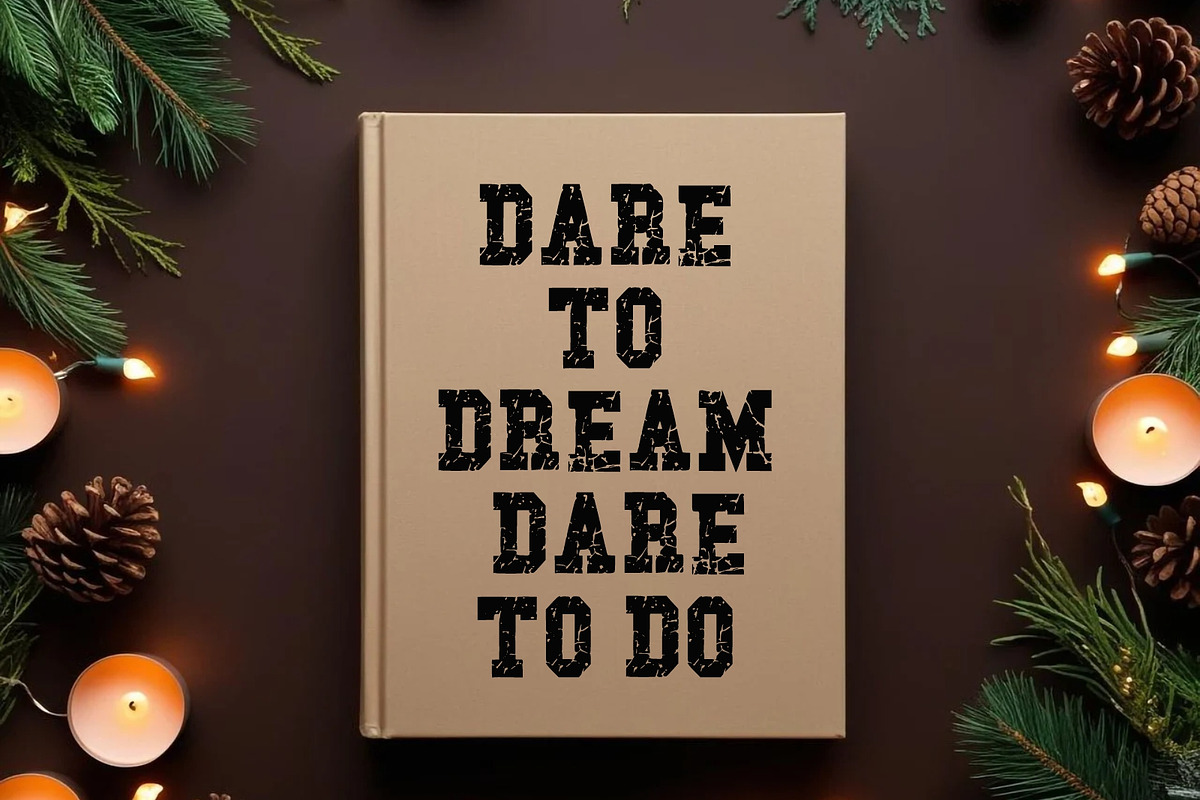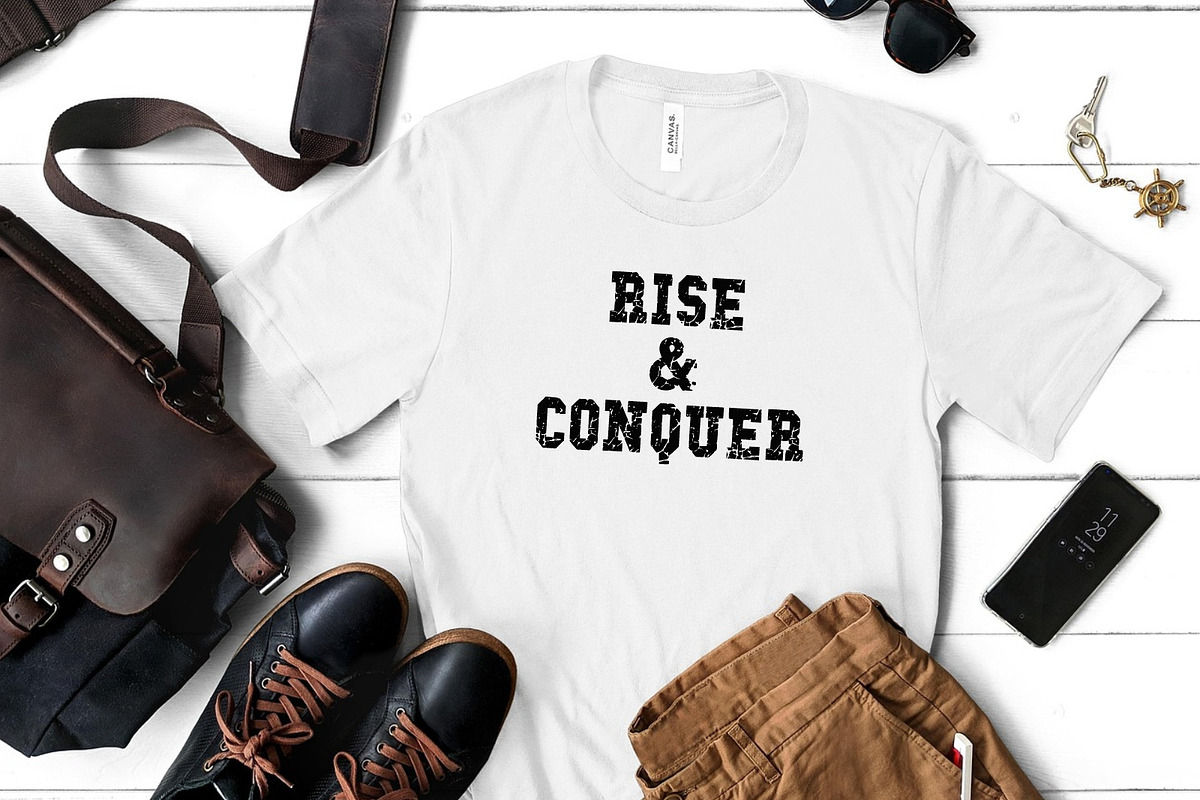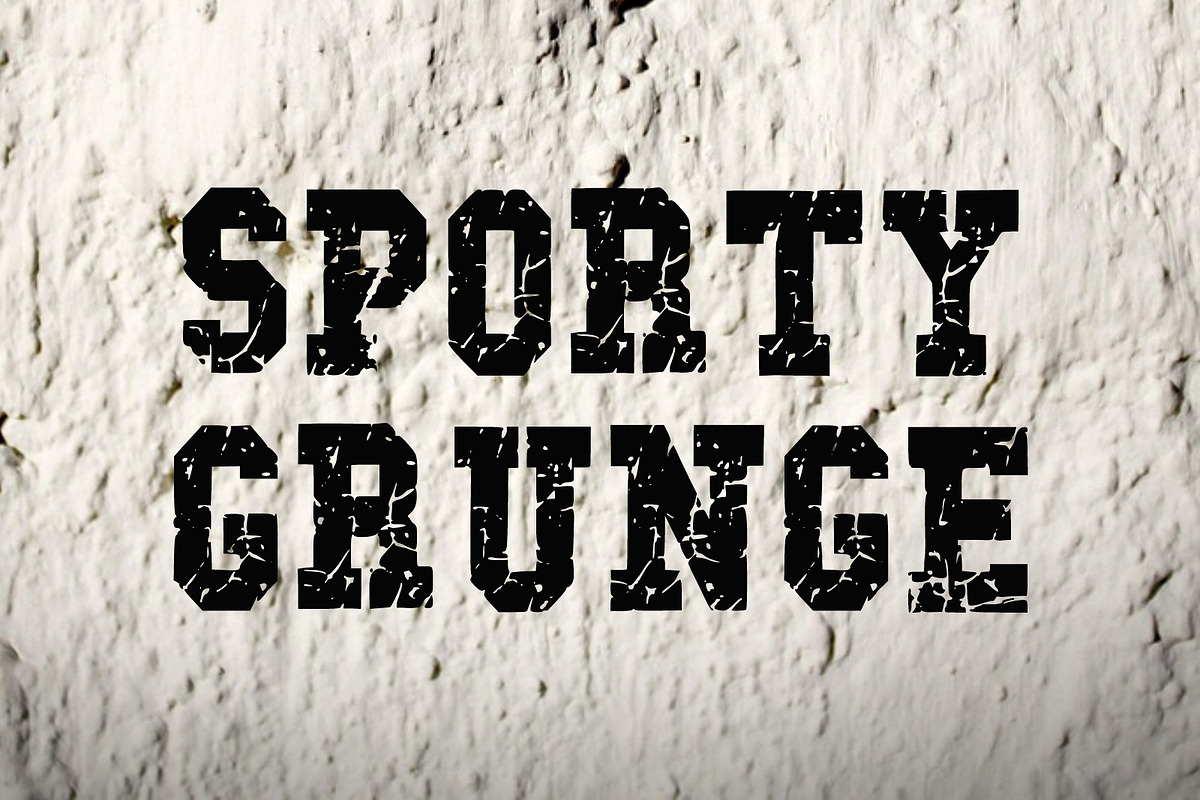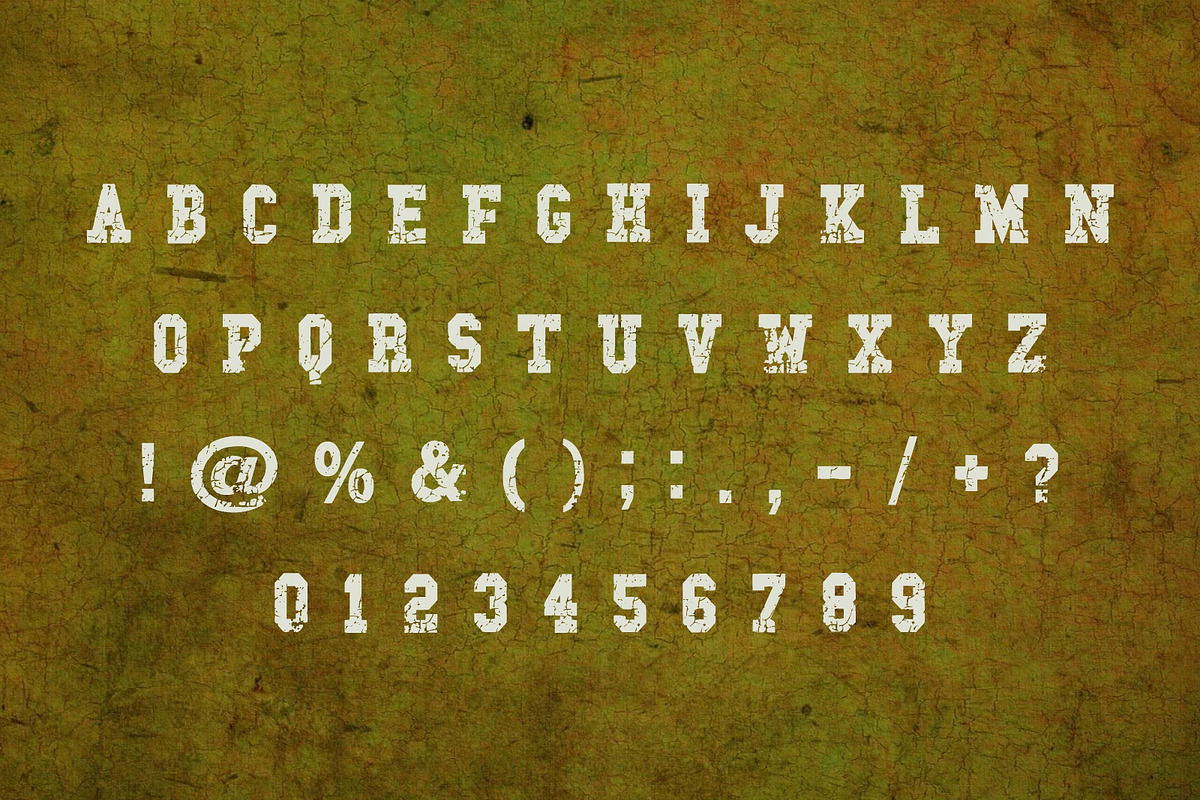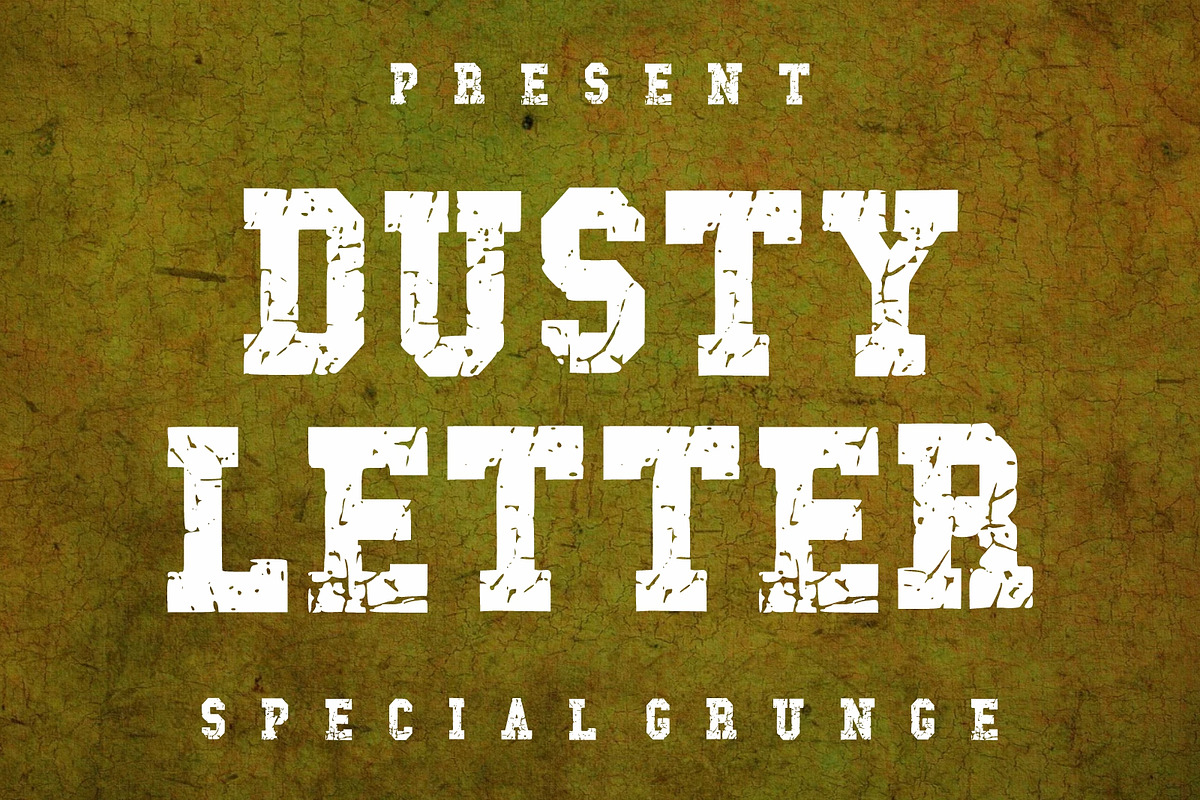
Dusty Letter
Dusty Letter is a powerful and authentic slab serif display font that evokes the raw spirit of the American West and old-world craftsmanship. Its bold, sturdy letterforms feature square, emphasised serifs and are heavily distressed with a natural, aged texture.